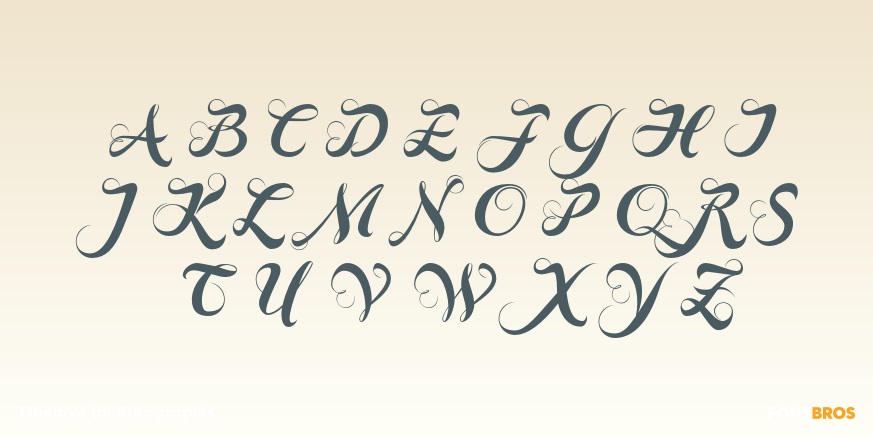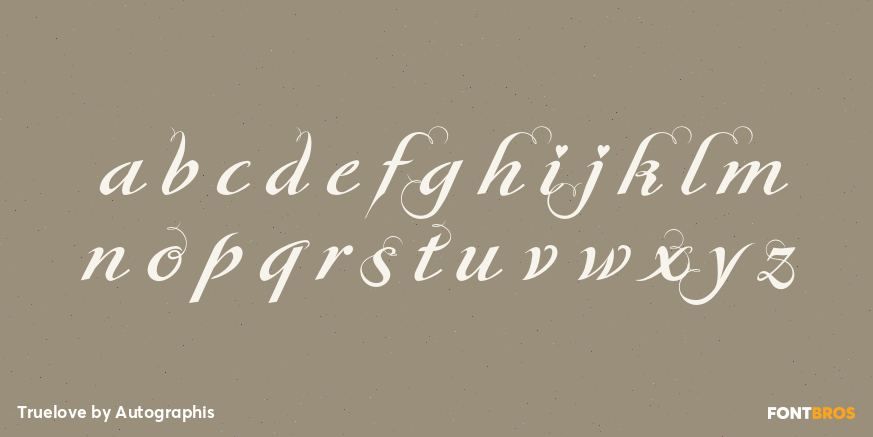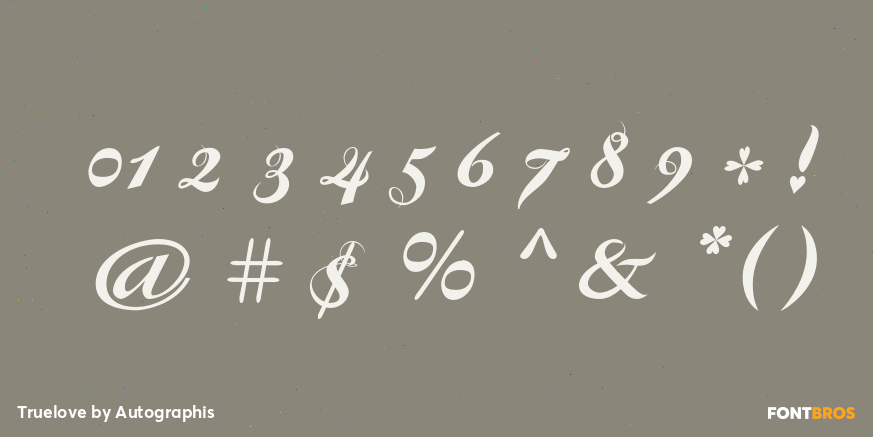
Truelove
Font Family by Autographis
TrueLove is my script for those occasions when you want to show someone that you really love him or her, when what you have to say really comes deeply from your heart.